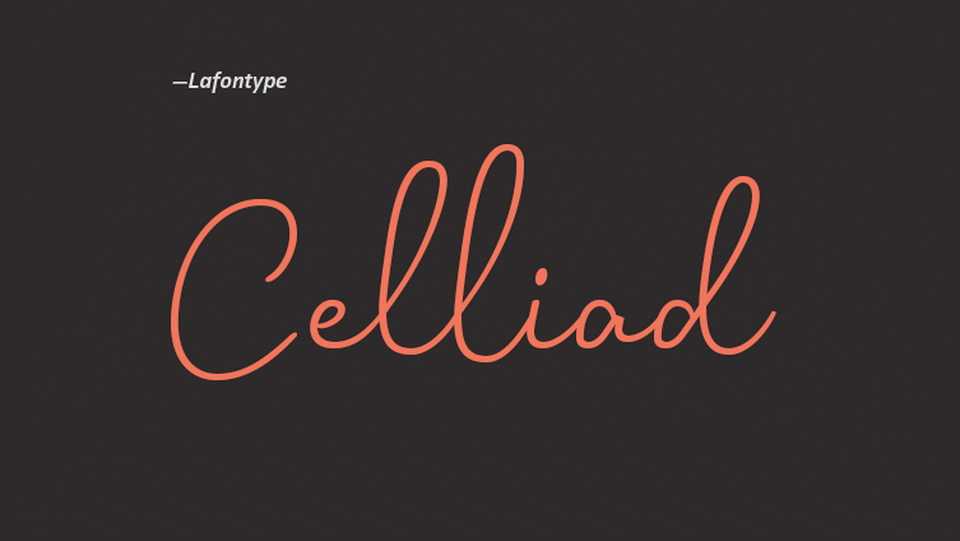
Download Celliad font, a simple and casual handwritten script. Celliad perfectly fits for crafts, notes, quotes, social media, cards, letters and other everyday projects.
Designer: Lafontype Foundry